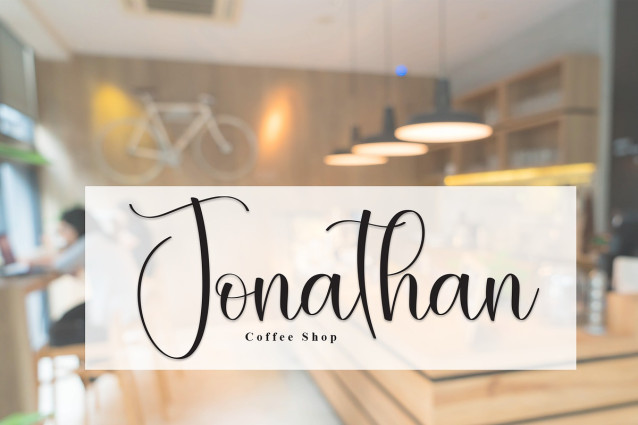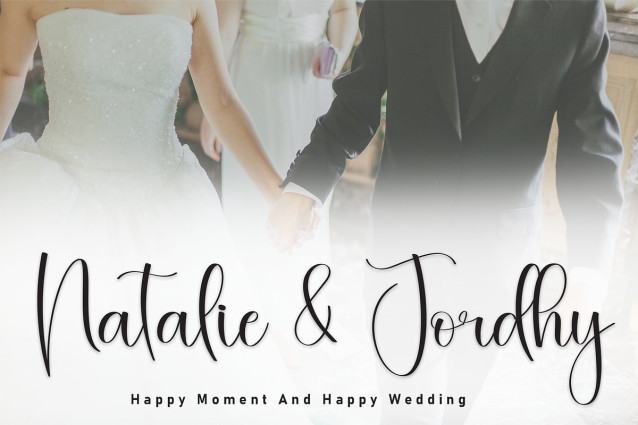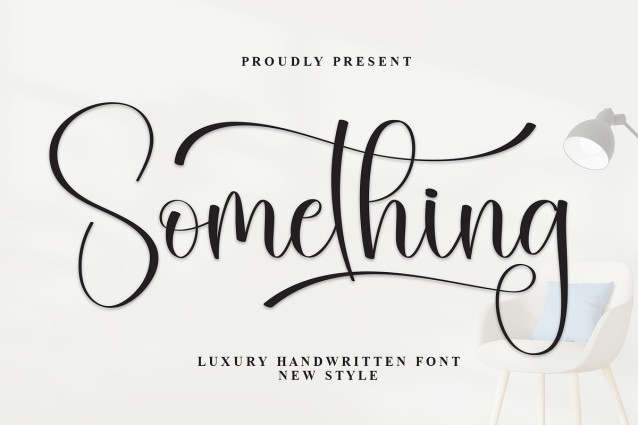
Something Font
Something Font – A popular and professional script font. Modern and elegant, this typeface is made of beautiful creative strokes.This font is perfect for your creative ideas, both formal and informal. It has a modern style with a touch of creative ideas that is very suitable to be applied anywhere that requires creative ideas such as invitation cards,letterheads, website logos, social media, banners, advertisements, brochures, packaging products, leather products, and any product that requires writing.By using this font, all of your products will look luxurious, elegant, and attractive, please try and see the results.